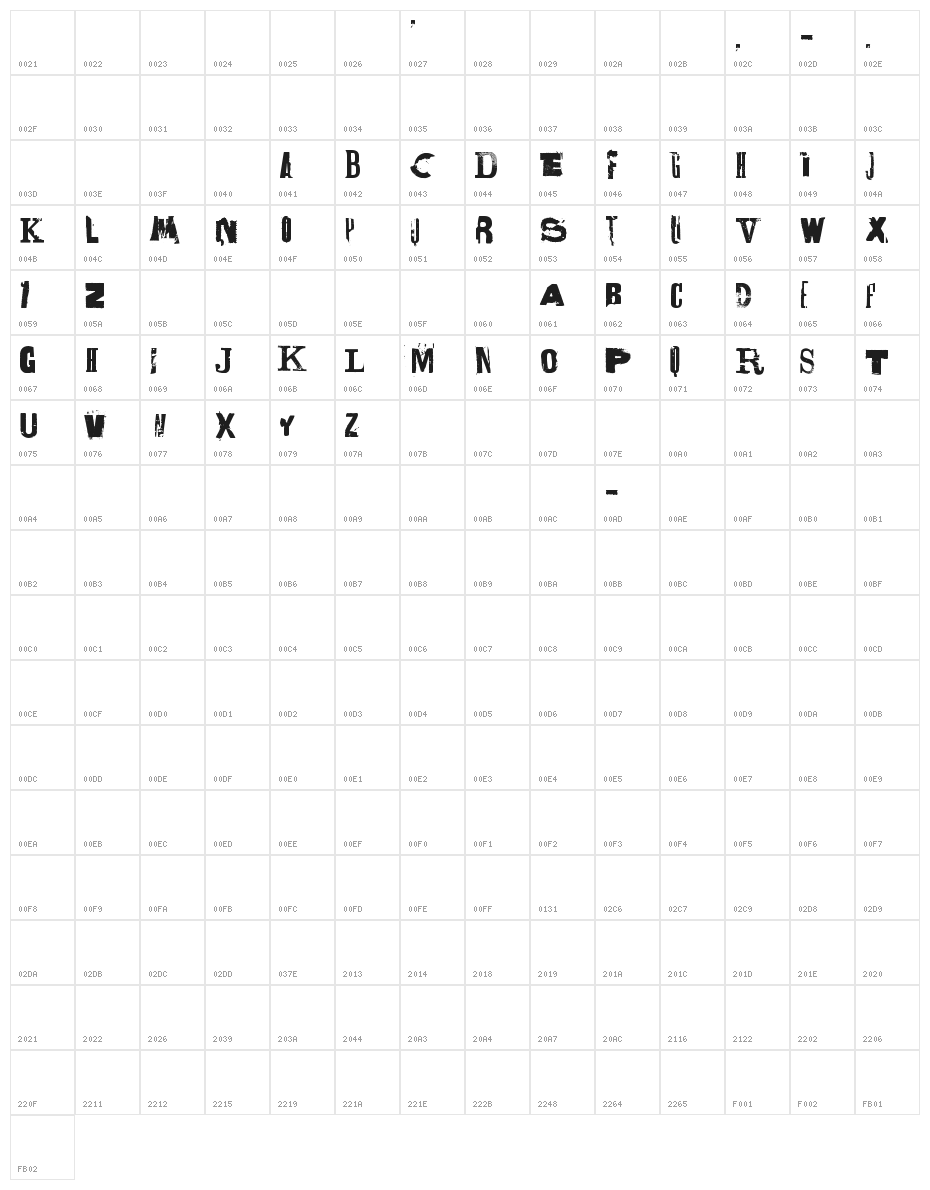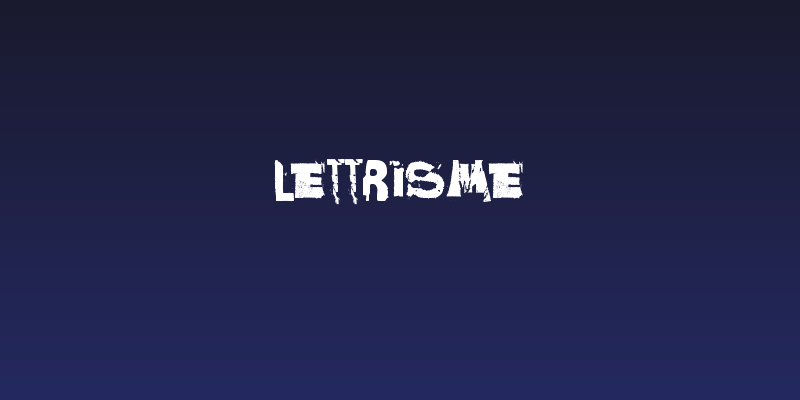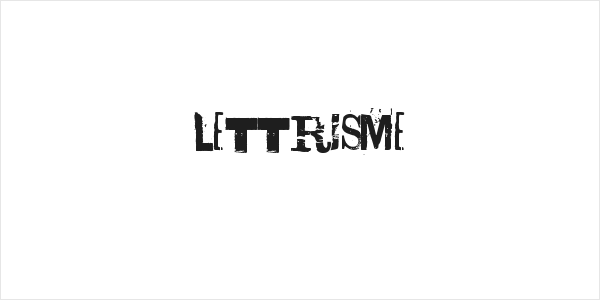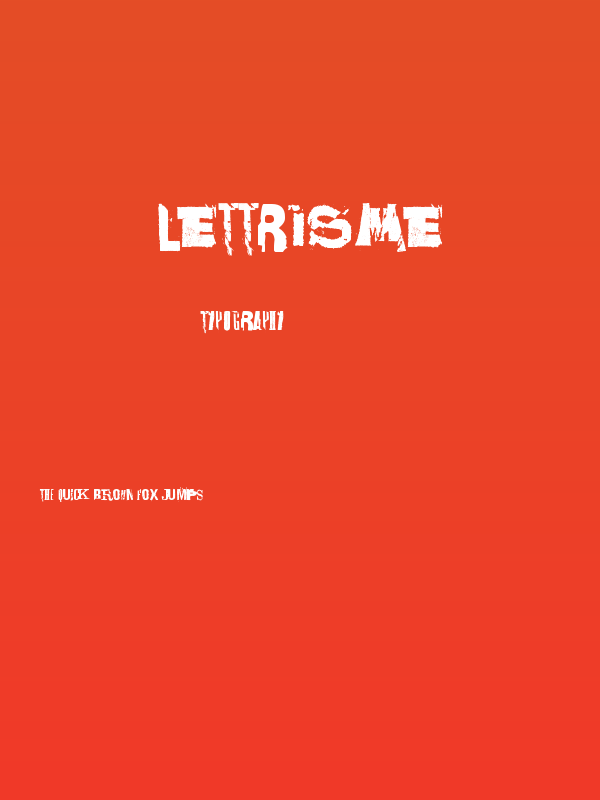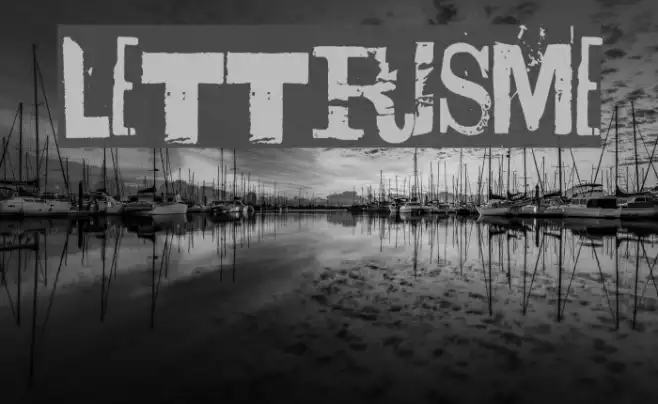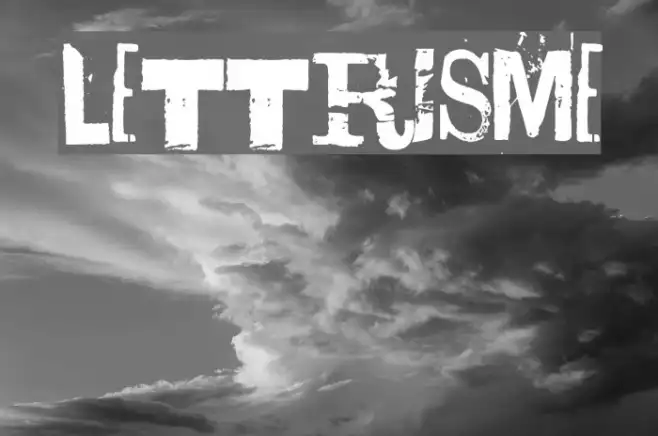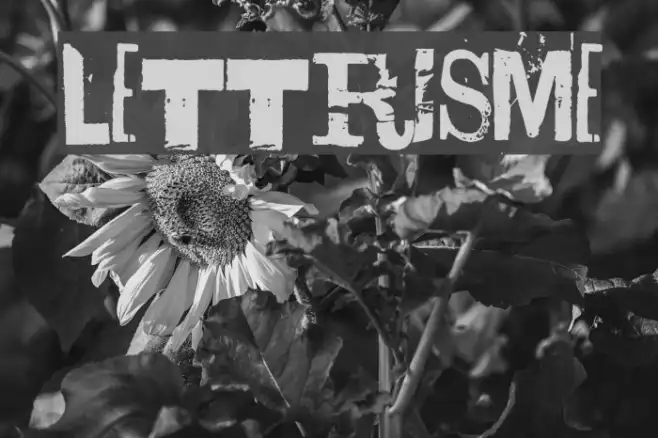
Lettrisme Font
Lettrisme Description
This font features a distressed, grunge style with a bold and impactful appearance. Each character appears as if it has been weathered or eroded, giving it a unique, textured look. The letters are uppercase and maintain a consistent height, though the irregular edges and varying levels of distress create a dynamic visual effect. This font is ideal for projects that require a raw, edgy aesthetic, such as music album covers, posters, or urban-themed designs. The boldness of the characters ensures readability while still maintaining an artistic flair.
| Overall Style | Grunge, Edgy |
| Proposed Projects | Album covers, posters, urban-themed designs, streetwear branding. |